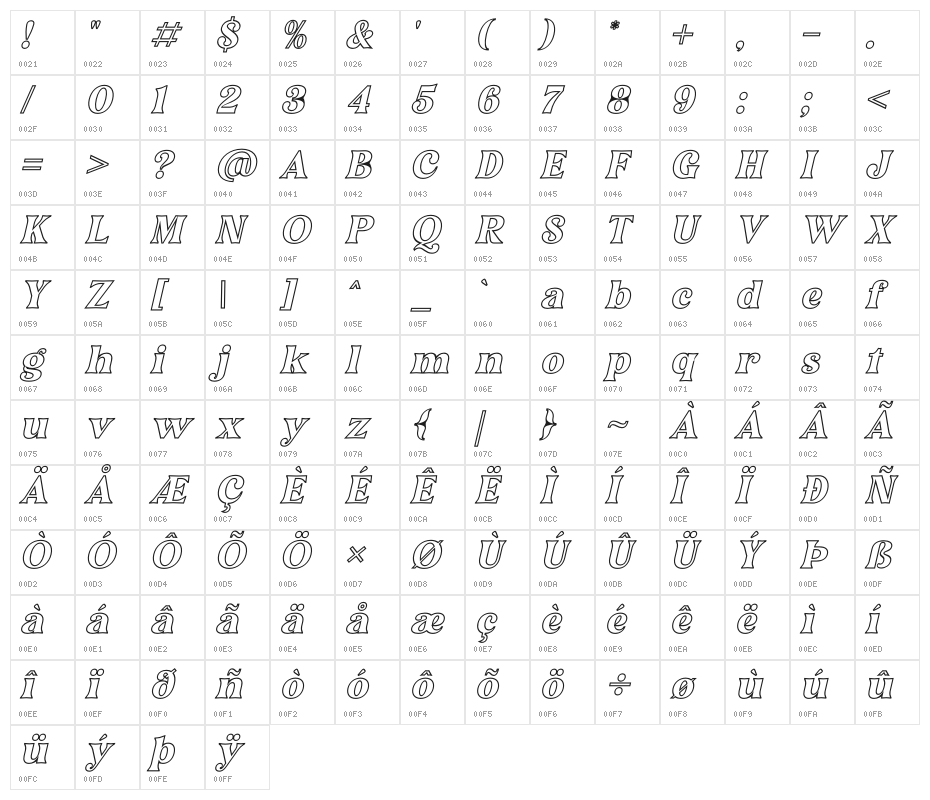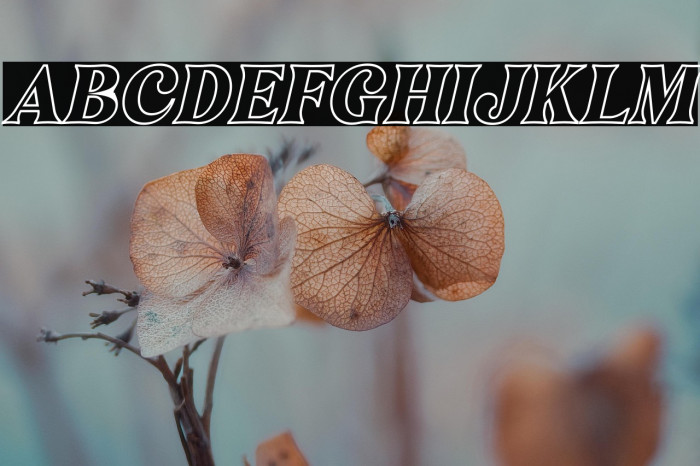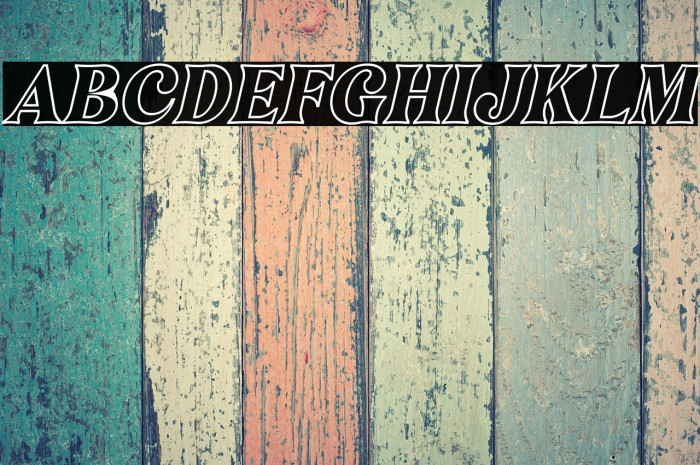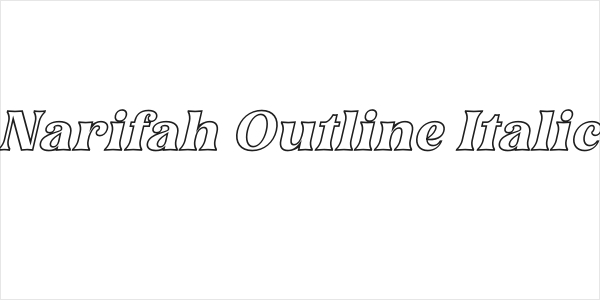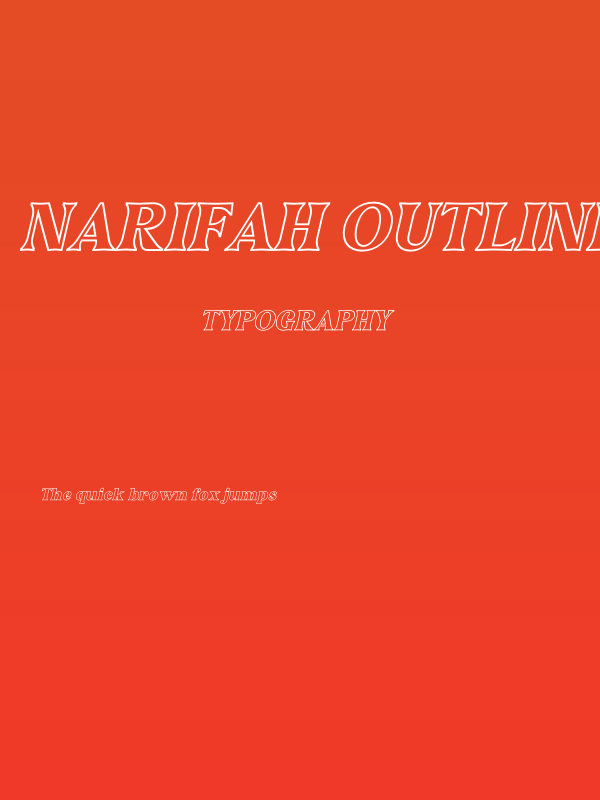
Narifah Outline Italic Font
Narifah Outline Italic Description
This font features a distinctive outline style with italicized characters, giving it a dynamic and elegant appearance. The uppercase and lowercase letters maintain a consistent slant, enhancing the sense of movement and sophistication. The numerals and special characters are designed to match the overall aesthetic, providing a cohesive look across all elements. The font's outline nature allows for creative use of color and layering, making it versatile for various design applications. Its clean lines and well-defined shapes ensure readability while adding a touch of flair.